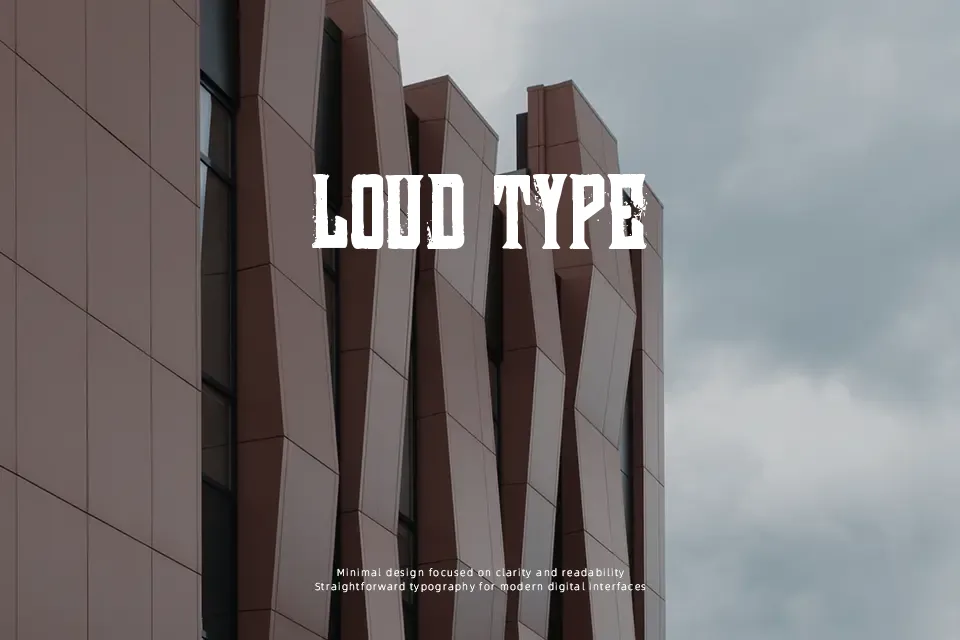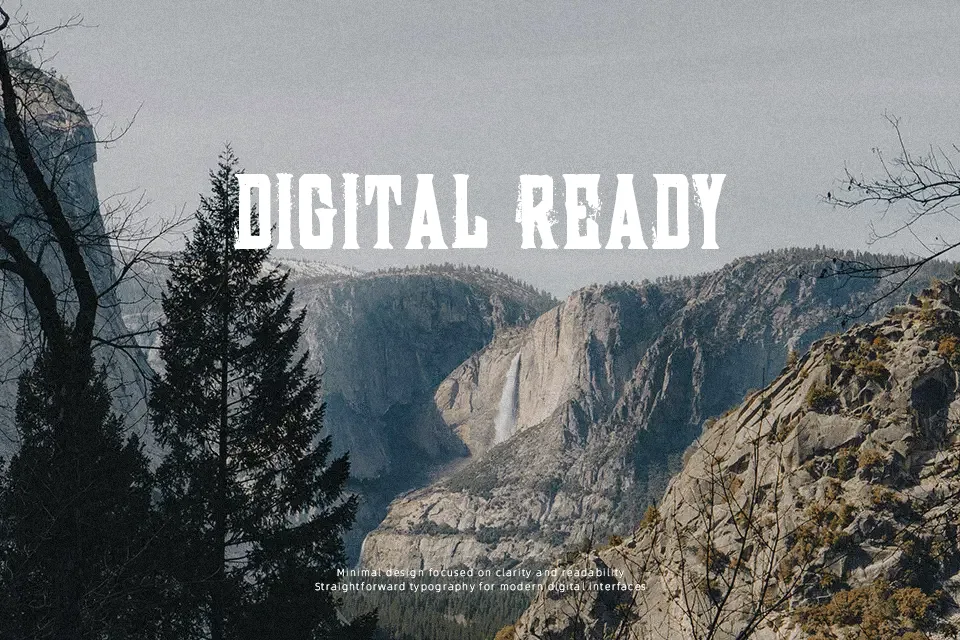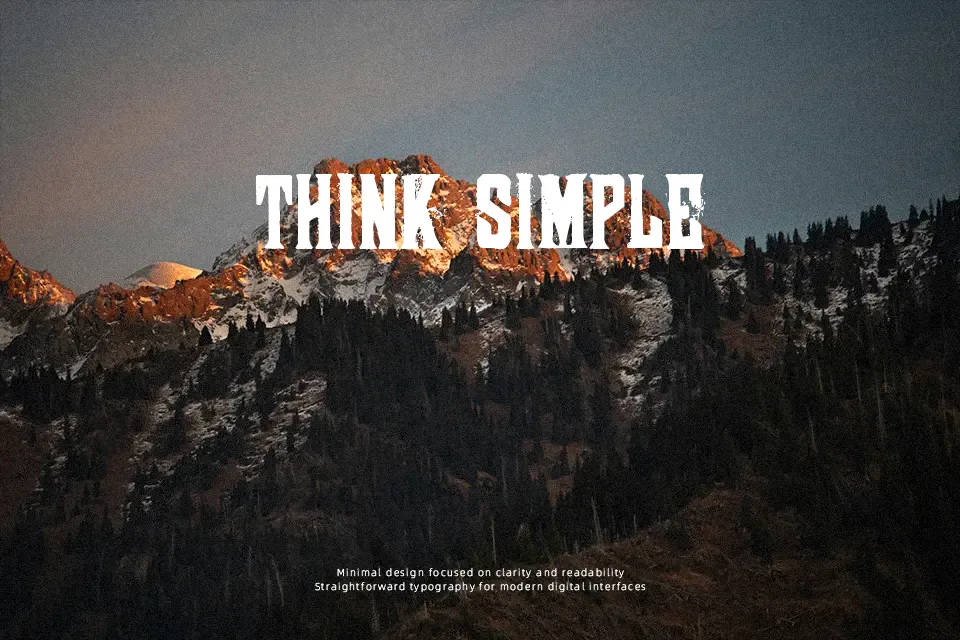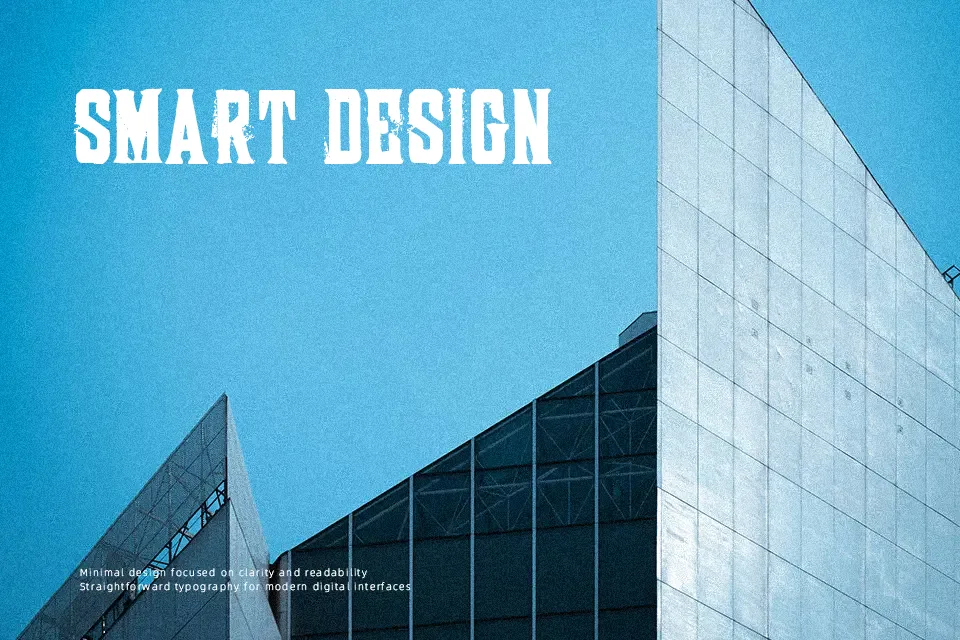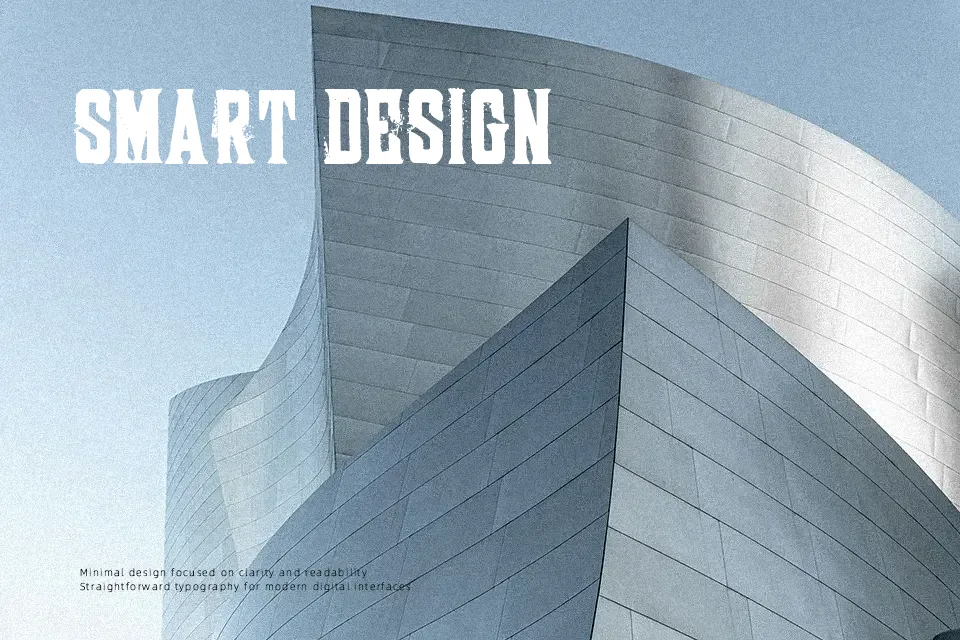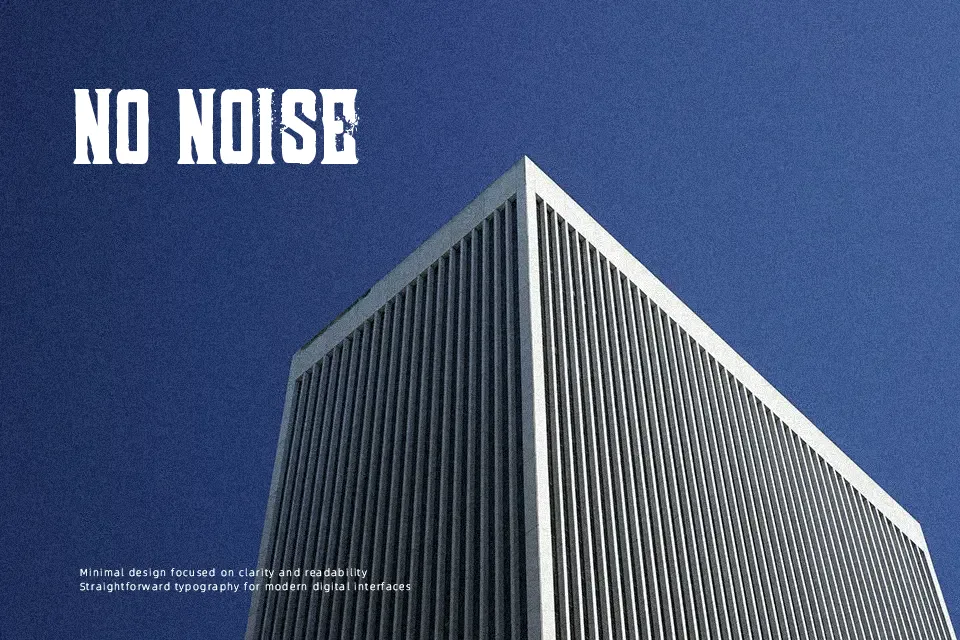
Snacks Font
Snacks Font uses broken, uneven letterforms with a heavily distressed surface and forceful display proportions. Its thick strokes and irregular edges create a rough visual rhythm, while the compact forms hold attention most effectively in short words and larger headlines. The design suits posters, clothing graphics, event artwork, and expressive logo concepts that need a worn or disruptive tone. The dense texture gives large text a strong presence, but it can make individual characters harder to distinguish at smaller sizes. In practical use, it works best when paired with simple supporting type rather than used for extended copy.
Best For: music event posters,apparel graphics,streetwear logos,album artwork
Perfect for advertising, logo, and music, with a bold and decorative style.